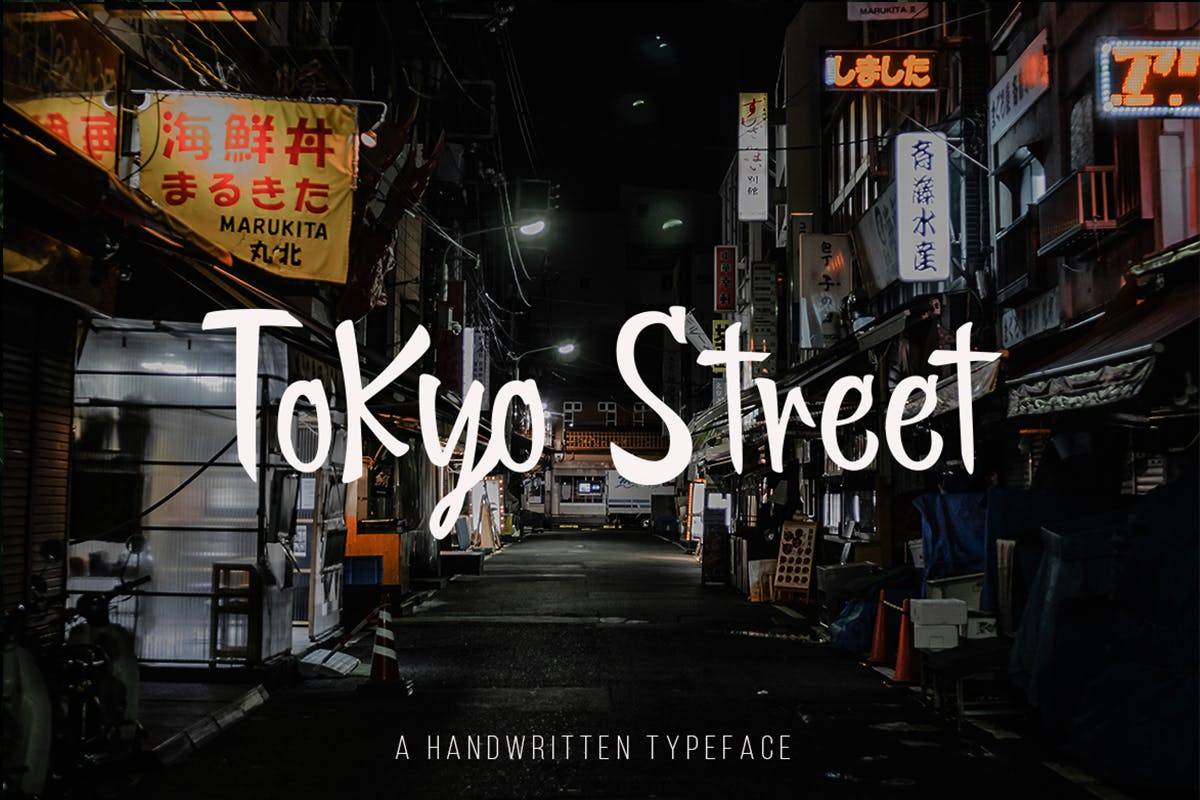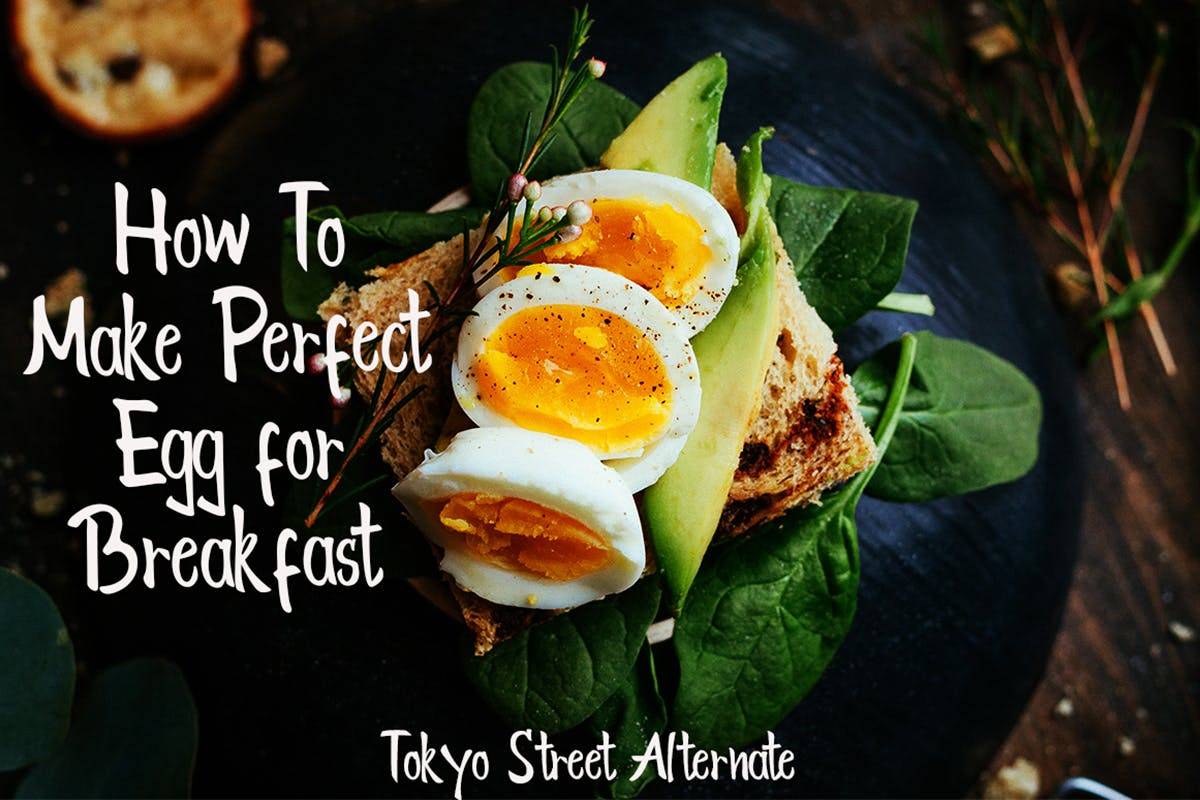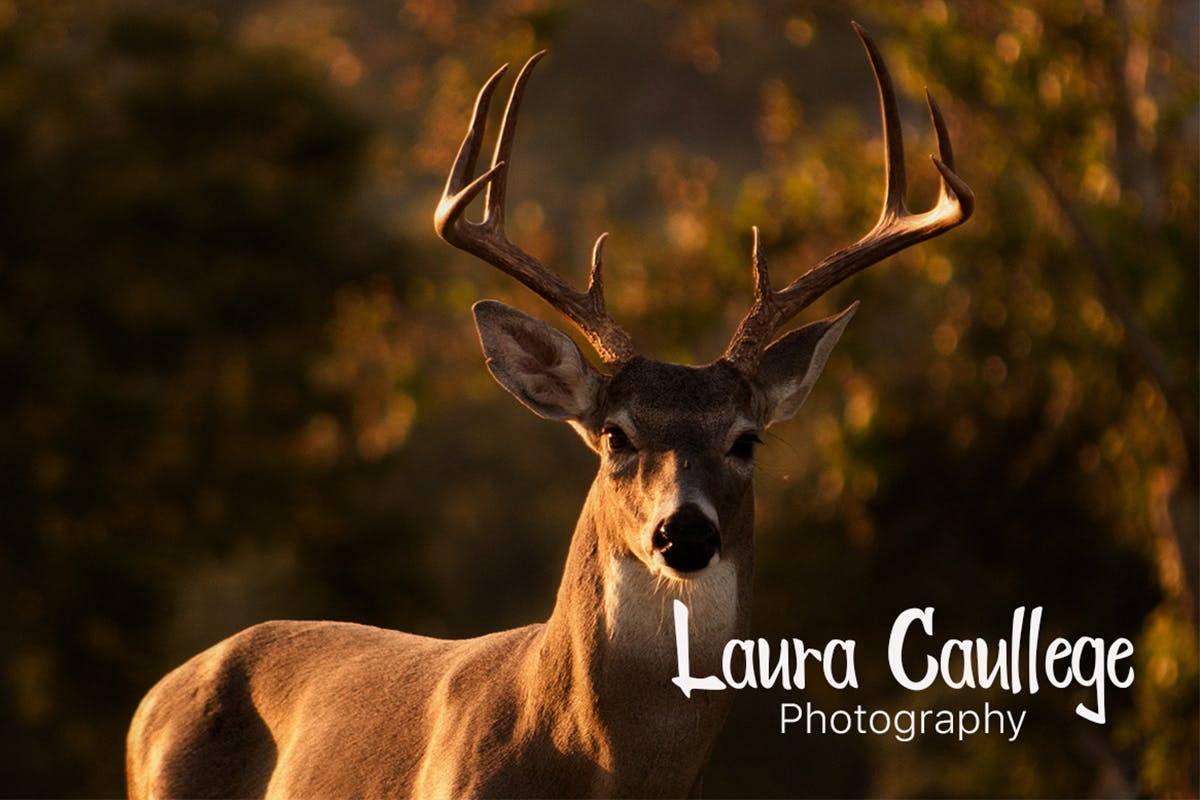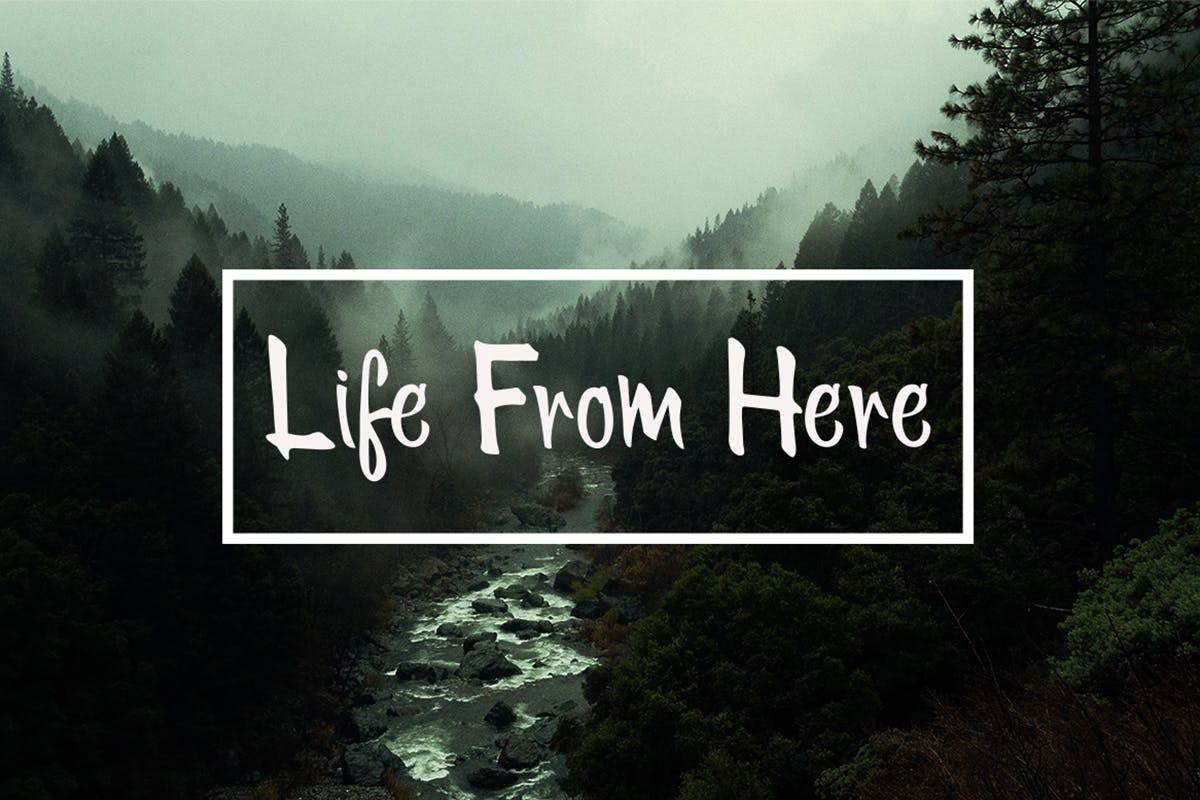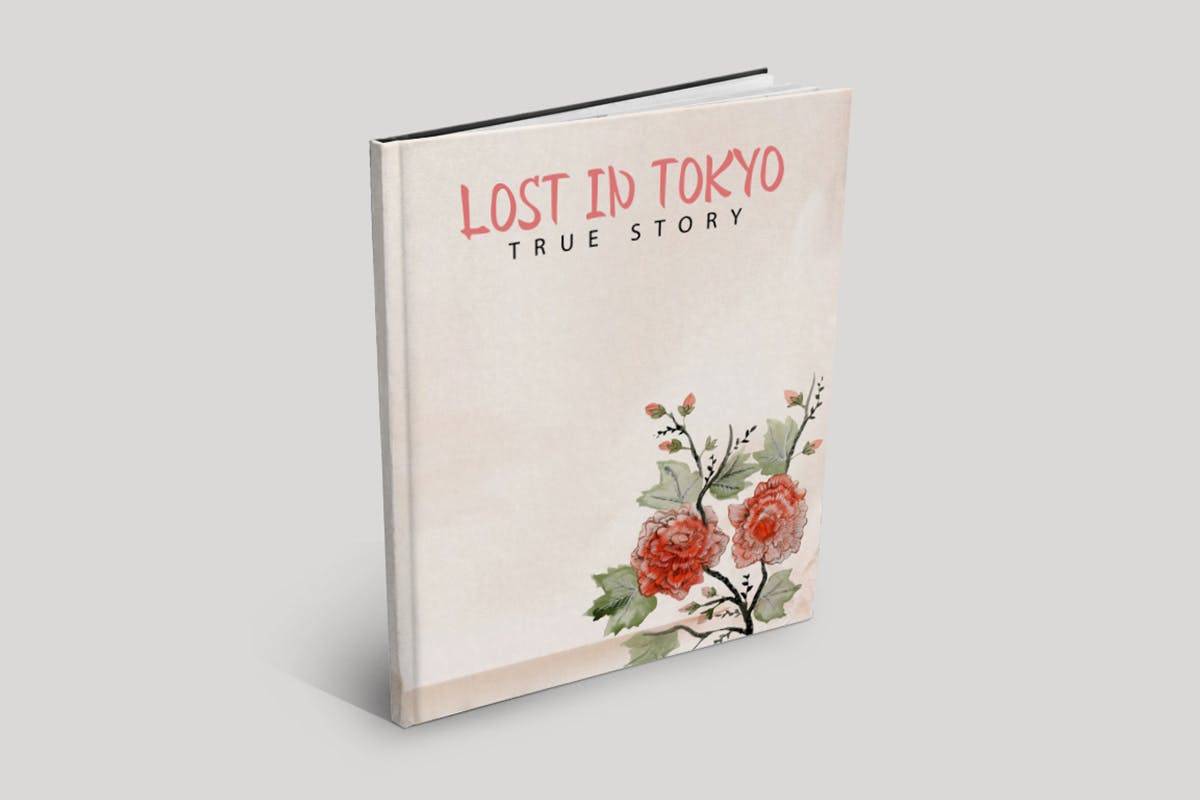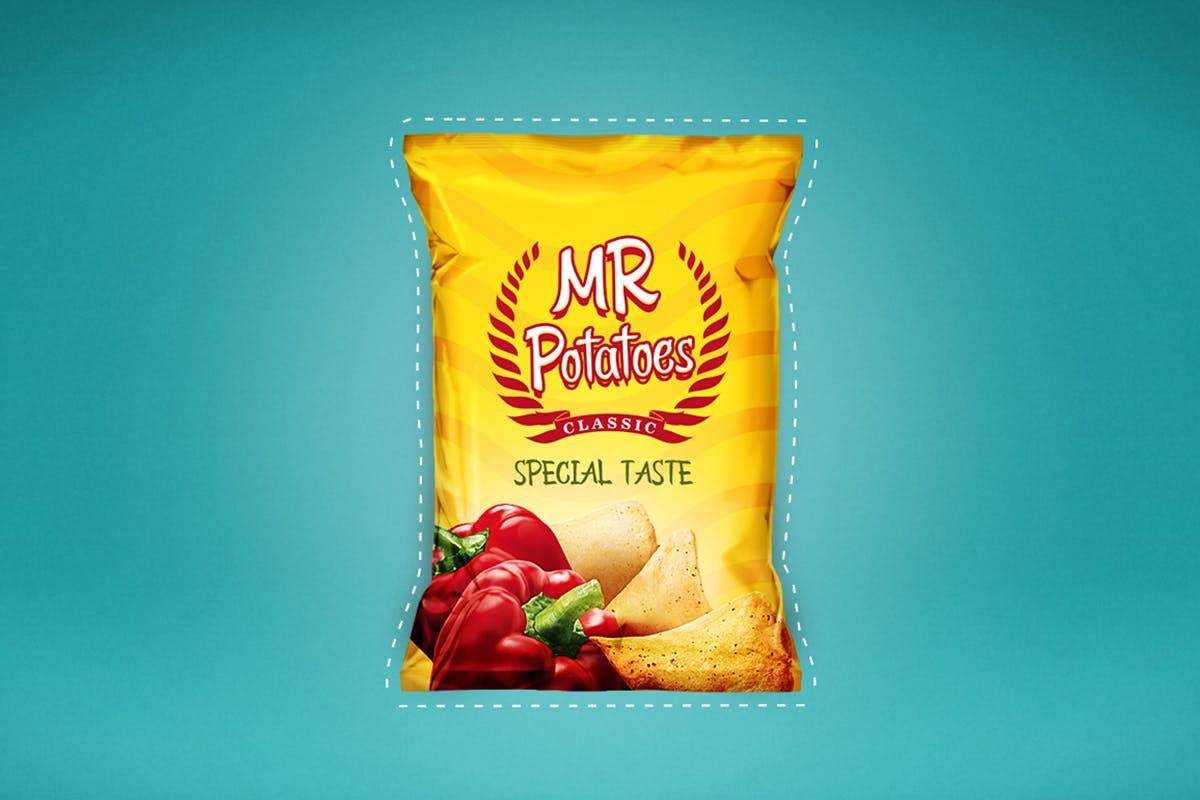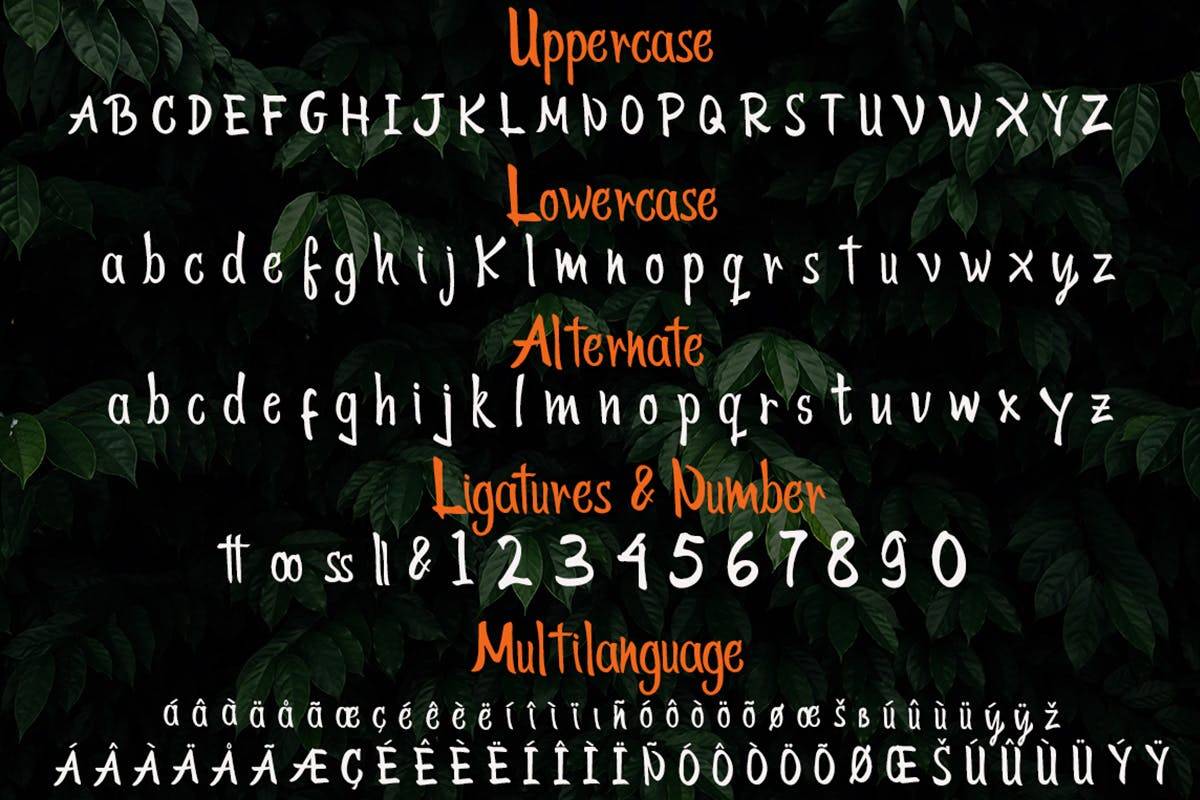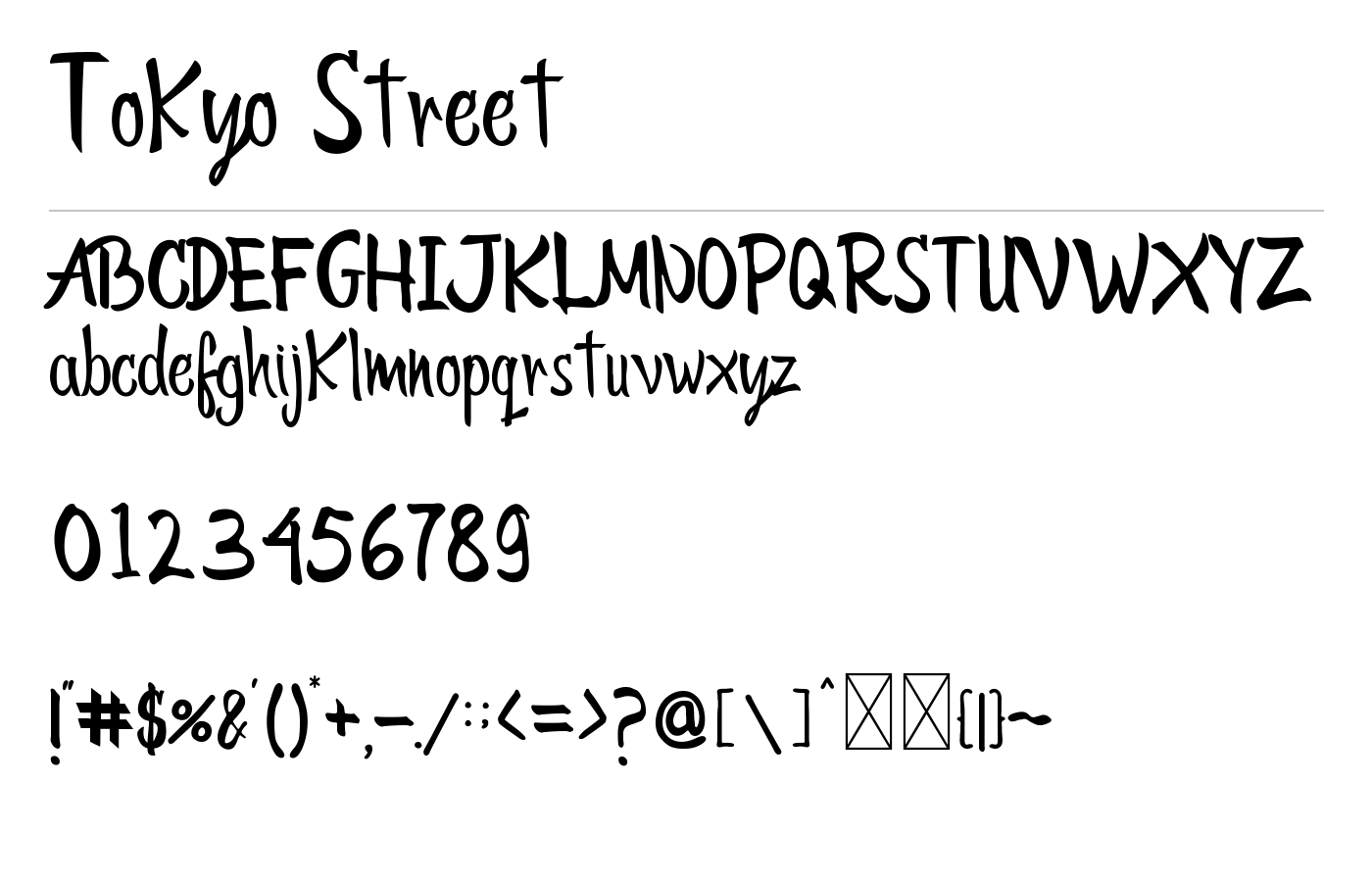
Tokyo Street is a lively handwritten typeface with an informal and playful feel, featuring irregular strokes that mimic natural brush or pen writing. Its tall, narrow letterforms with varied stroke widths create an energetic and dynamic style, ideal for creative projects that need a casual, approachable vibe. This font works perfectly for headlines, branding, and packaging where a personal and youthful touch is desired.
Tokyo Street Handwritten Typeface
About Tokyo Street Handwritten Typeface